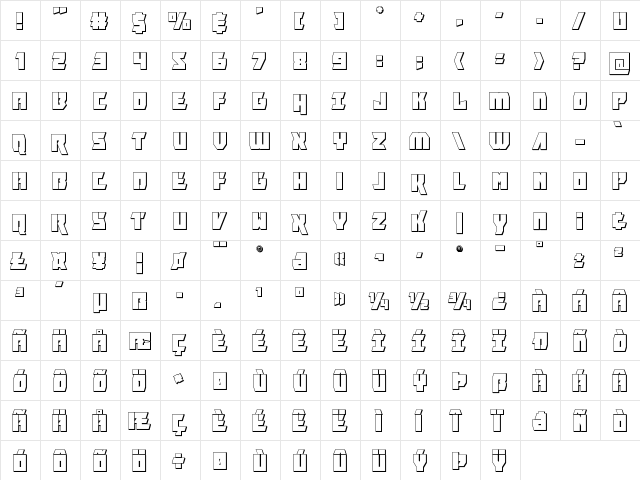
Furiosa 3D Regular Font Preview
Furiosa 3D Regular
Design Context for Furiosa 3D Typeface
Furiosa 3D is a composed and adaptable typeface that performs quietly and consistently across a wide range of design contexts.